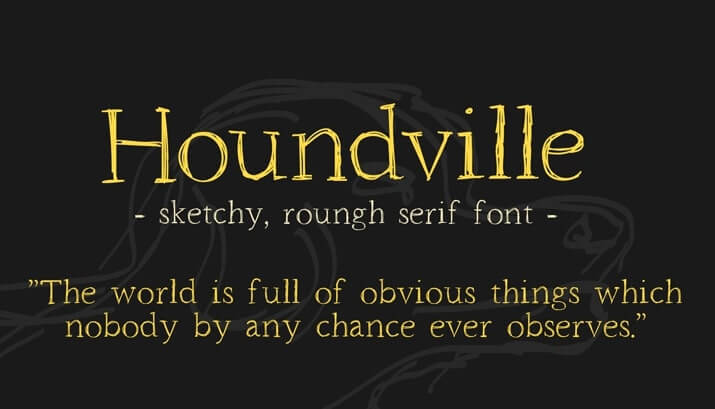
Houndville Sketchy Font
Houndville Sketchy Font is a binary plus font download that features a clean and rough version. It includes both uppercase and lowercase fonts, as well as a variety of numbers and unique characters.
This free font contains three different elegances like Abel Font for your typographic satisfaction – Regular, Italic and Bold as compare to the font in high in demand.